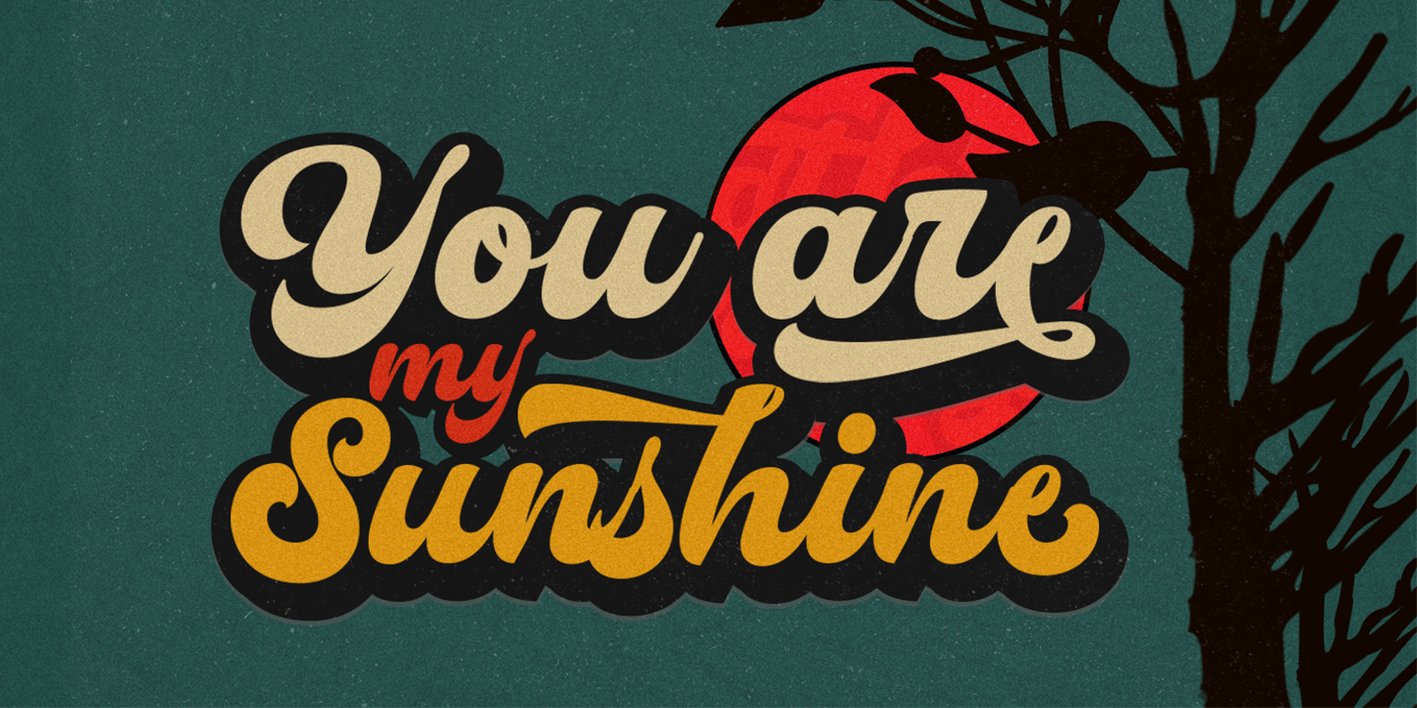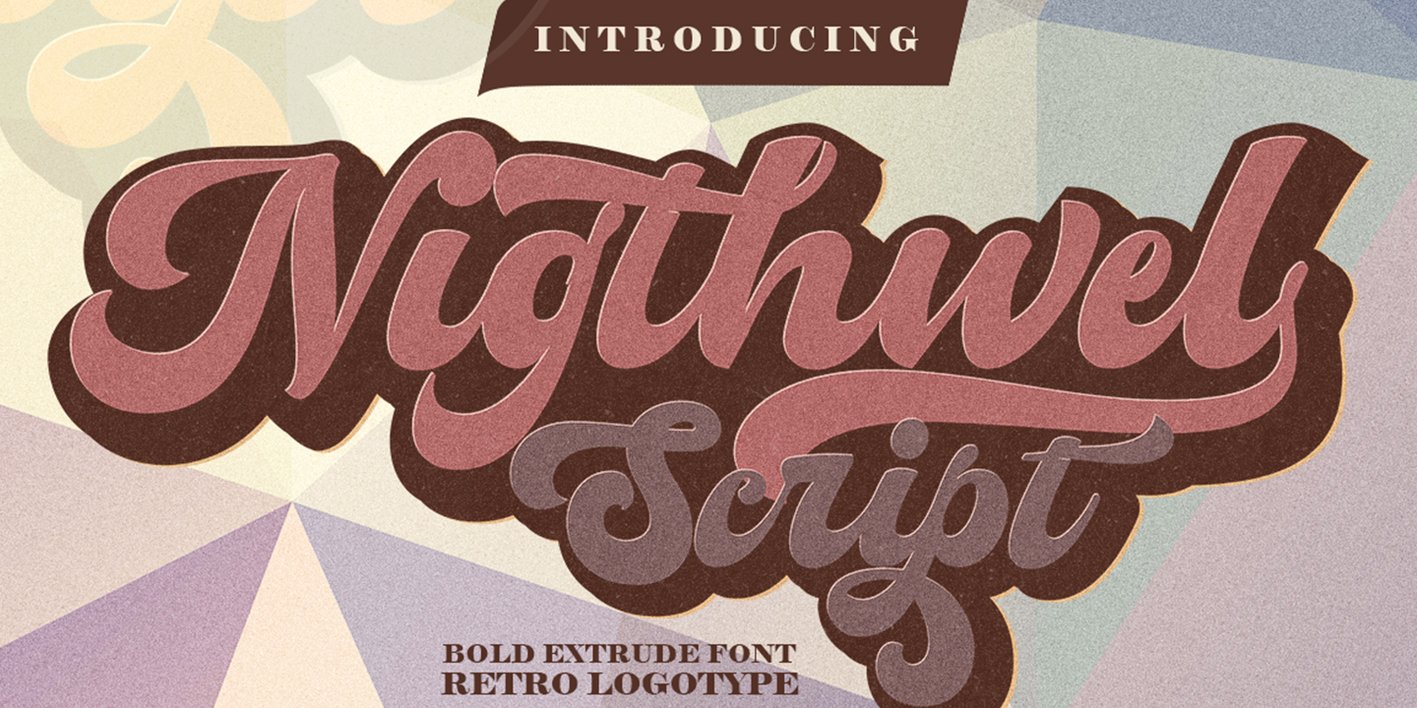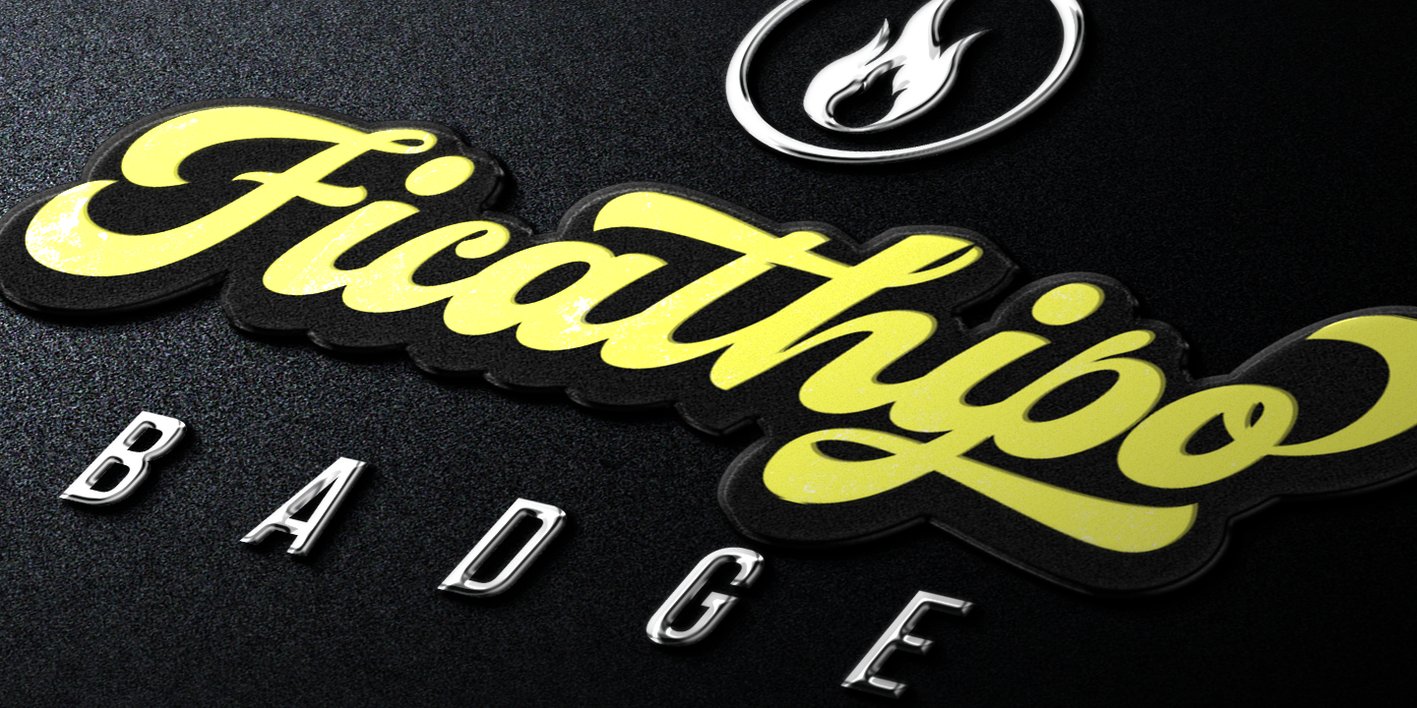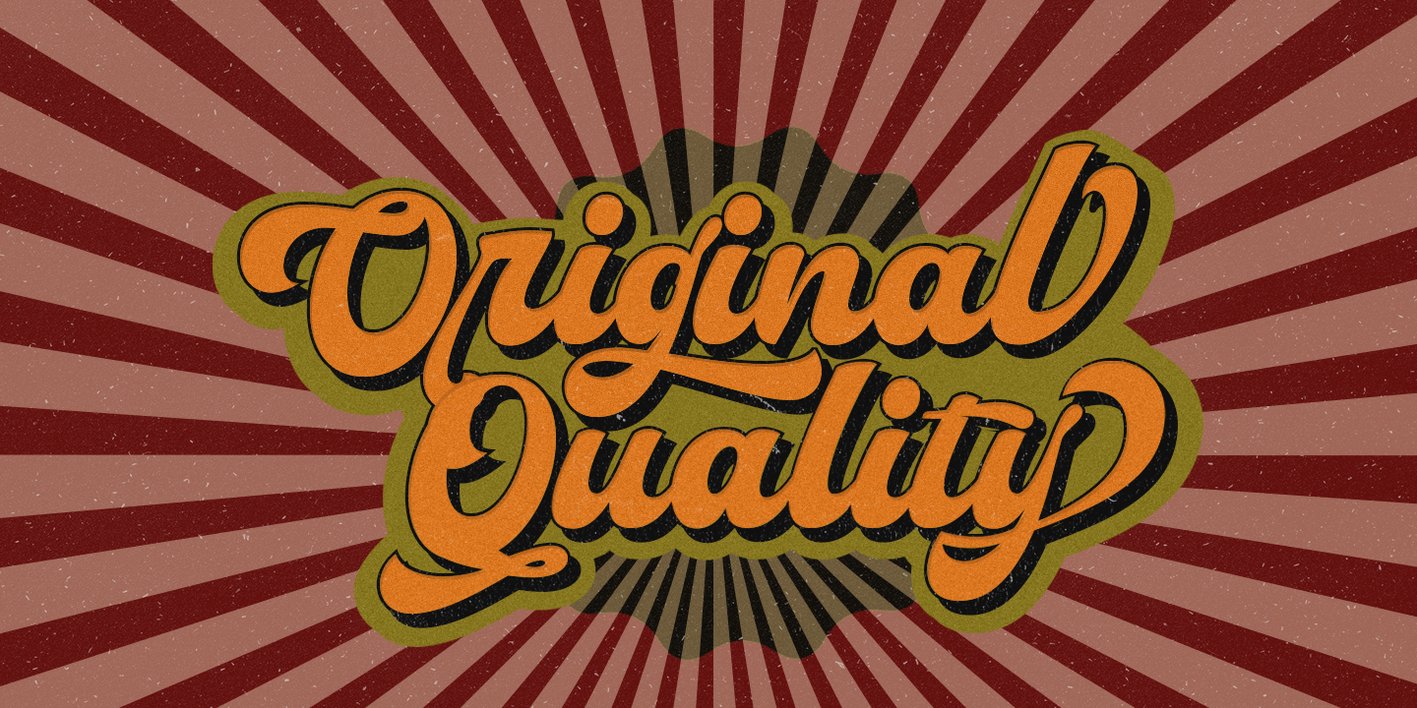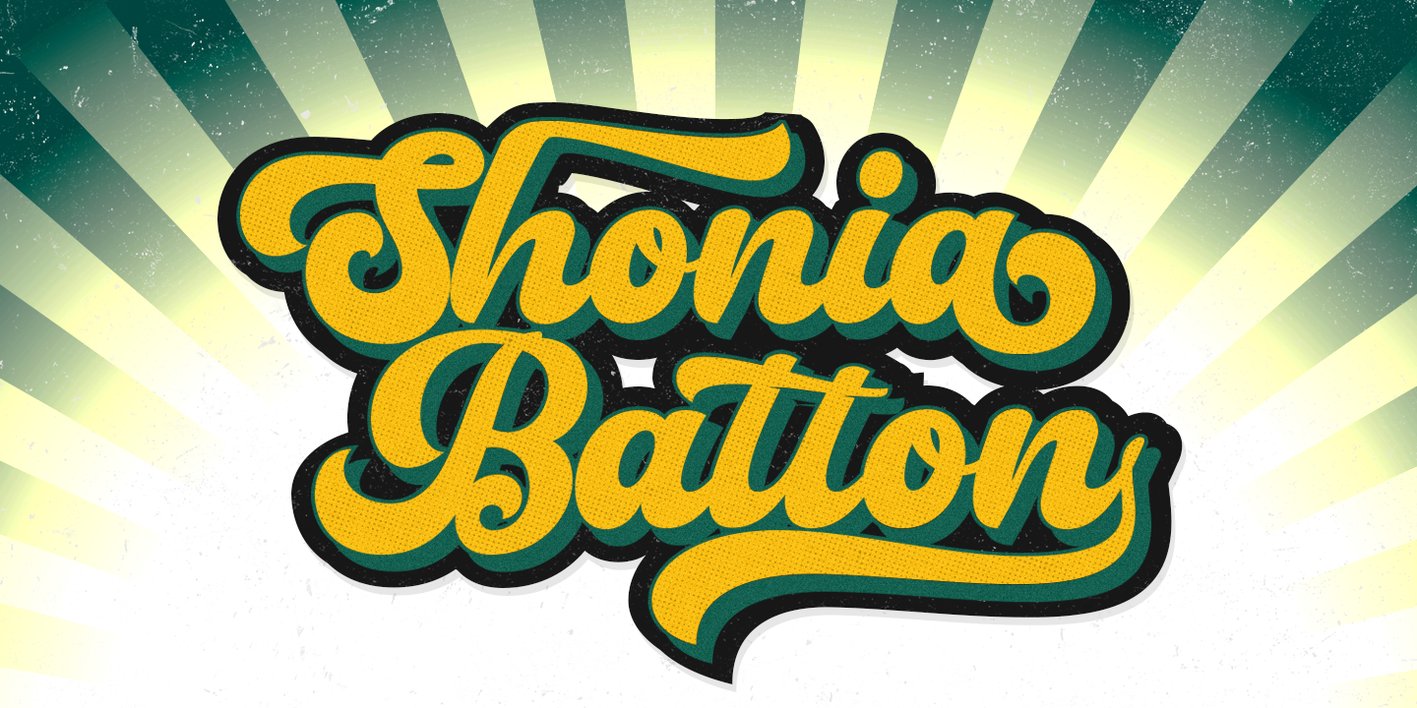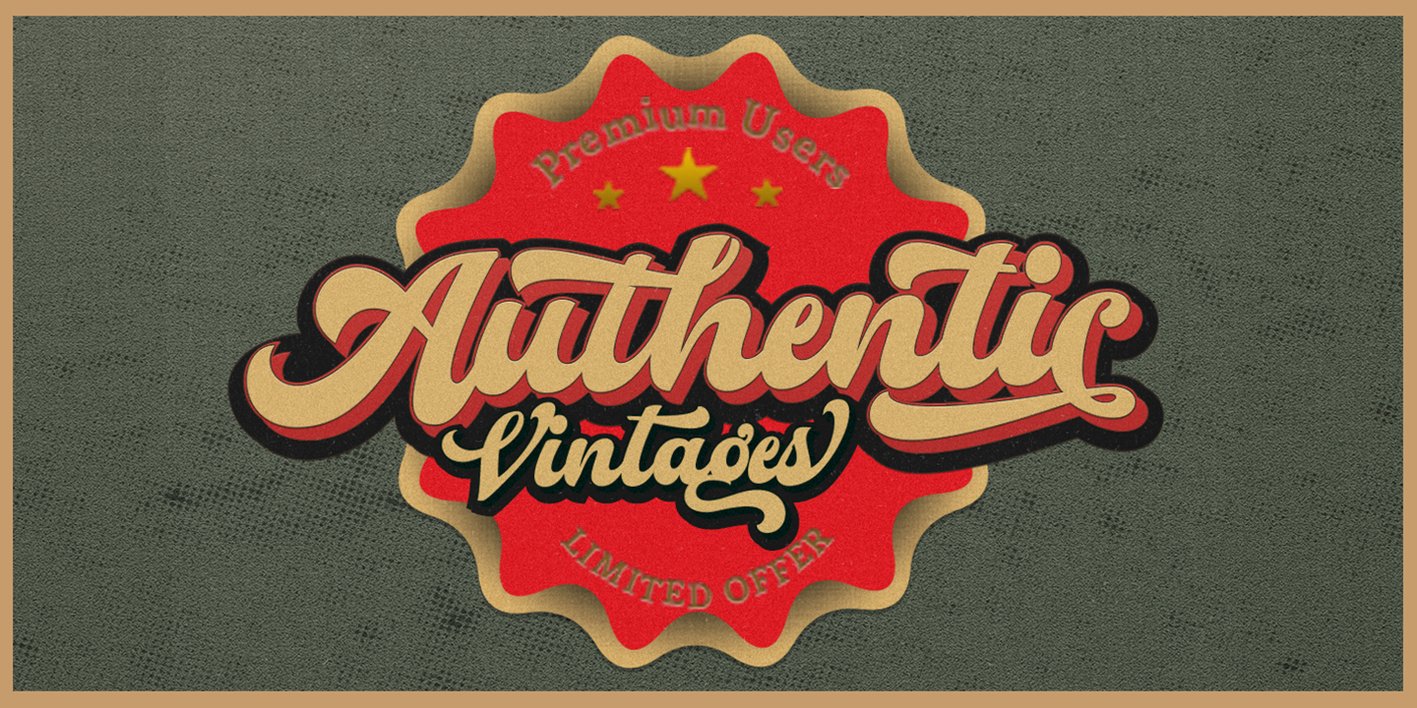
Nigthwel Font
Nightwel Font excels in evening wellness center branding, nighttime spa services, sleep therapy clinics, moonlight yoga studios, evening meditation retreats, nocturnal wellness programs, restful sleep product packaging, twilight relaxation centers, night shift wellness initiatives, and peaceful evening lifestyle brands. This calming typeface brings nighttime tranquility and restorative wellness to any evening-focused design project.
Nightwel Font is exciting because it embodies the peaceful serenity and restorative power of nighttime wellness, featuring gentle letterforms that evoke the calming darkness, starlit tranquility, and the natural rhythm of rest that allows the body and mind to heal and rejuvenate. Its soothing character instantly conveys relaxation, restoration, and the therapeutic benefits of quality nighttime wellness.
Nightwel Font family includes Light, Regular, Medium, and Bold weights with peaceful alternates, calming flourishes, sleep-inspired ornamental elements, and wellness symbols that enhance the restorative aesthetic, providing wellness designers with tranquil tools for creating typography that promotes nighttime relaxation and restorative health practices.
Evening wellness designers appreciate Nightwel Font for its exceptional ability to convey nighttime serenity and promote relaxation through carefully balanced letterforms. The font's peaceful character and wellness-focused details create immediate associations with quality sleep, evening meditation, and the restorative practices that support optimal health through proper rest and nighttime wellness routines.
The design philosophy behind Nightwel Font celebrates the fundamental importance of nighttime wellness and the therapeutic power of restorative sleep for overall health and well-being, making it particularly effective for sleep clinics, wellness centers, and health brands that focus on evening relaxation and nighttime recovery. Healthcare teams working on sleep wellness find this font essential.
Whether used for sleep therapy centers, evening wellness programs, or nighttime relaxation products, Nightwel Font delivers the perfect combination of calming tranquility and wellness authenticity. Its peaceful appeal and restorative character make it an indispensable choice for brands that promote healthy sleep, evening wellness, and the therapeutic benefits of quality nighttime rest and recovery.